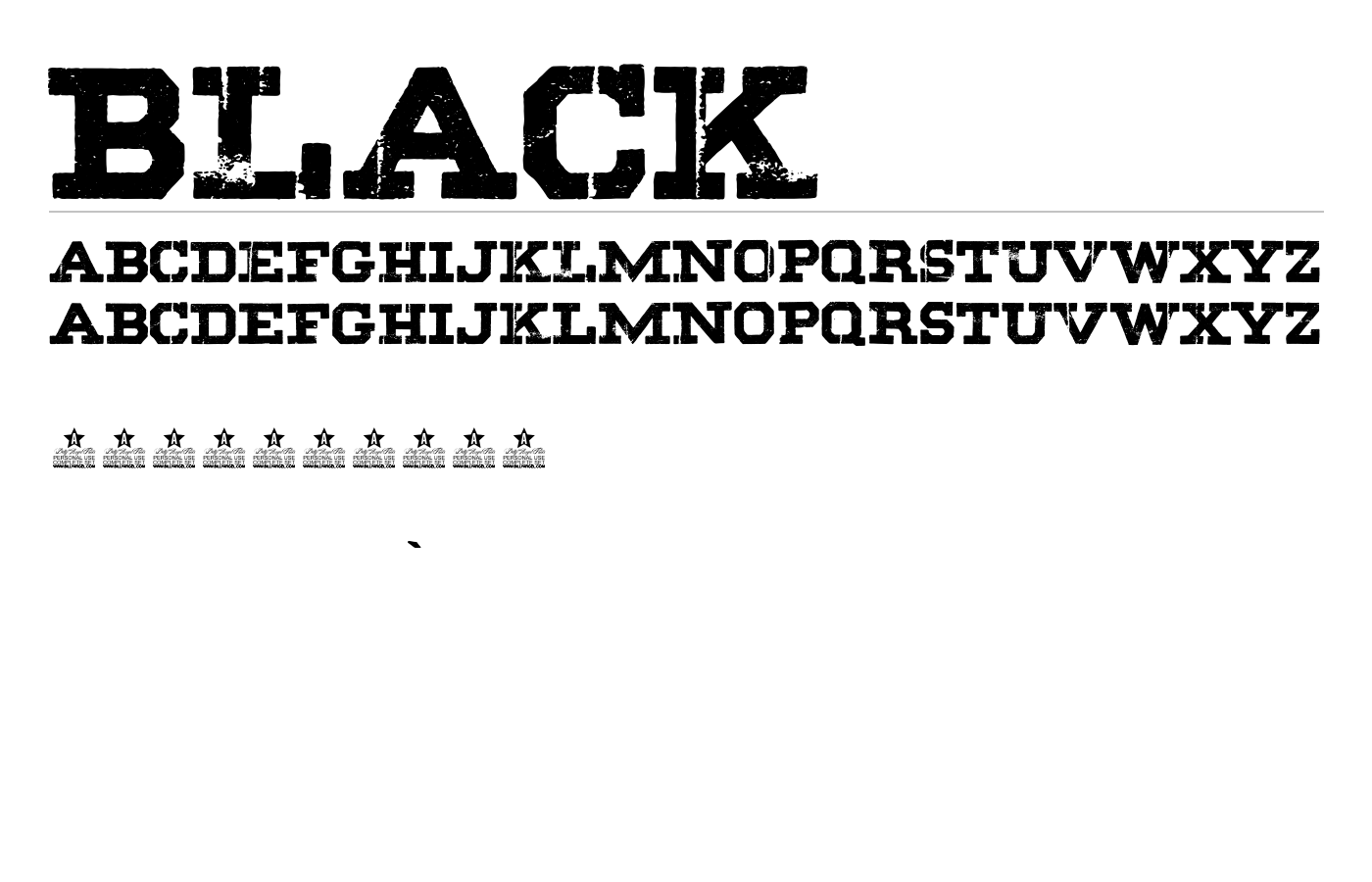
BLACK Font is a bold, slab serif typeface with a distressed, textured style that gives it a rugged, vintage appeal. Its strong, heavy strokes and blocky letterforms make it perfect for eye-catching headlines, logos, and designs that need a bold, industrial, or retro personality. This font works great in posters, packaging, and branding where a tough, handcrafted look is desired.
BLACK Font
About BLACK Font
| Font family | BLACK Font |